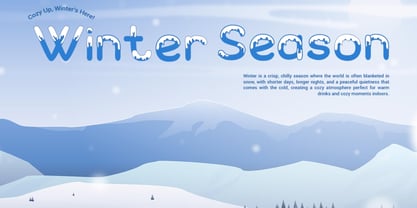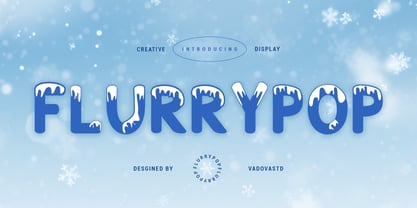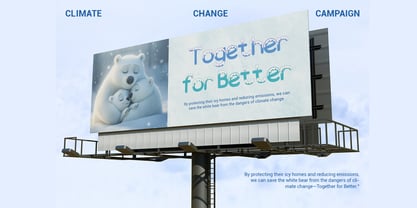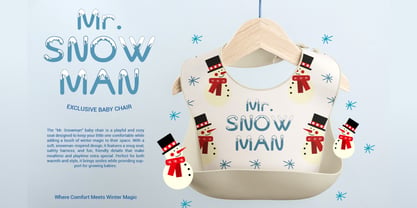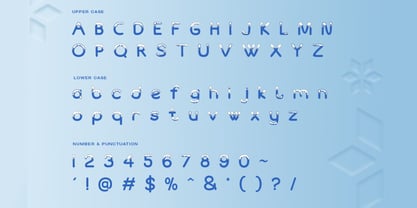
Flurrypop
by Vadova Std
The Flurrypop Font Family was designed by and published by Vadova Std. Flurrypop contains 1 styles. More about this family
Elevate your designs with Flurrypop Creative Font a font perfect for adding elegance and style to your projects. Whether it’s for quotes, logotypes, magazine headers, or more, this versatile typeface ensures your text stands out beautifully.